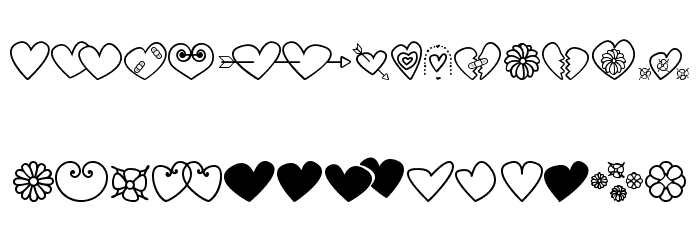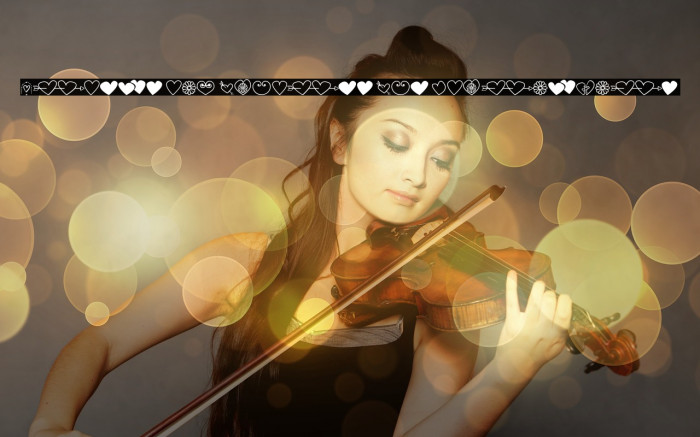
hearts and flowers for valentines Font
This decorative collection features a variety of heart and flower motifs, perfect for Valentine's Day themes. The designs include hearts with arrows, broken hearts, and hearts with intricate patterns, as well as floral elements like daisies and roses. The style is playful and romantic, with a mix of bold and outlined shapes that add a whimsical touch. These elements can be used to create borders, embellishments, or standalone graphics for cards, invitations, and other romantic projects.
A whimsical collection of heart and flower motifs for romantic designs.
- Proposed Projects: Ideal for Valentine's Day cards, wedding invitations, romantic scrapbooking, and decorative borders.
- Use Case: Logos, Decorative elements